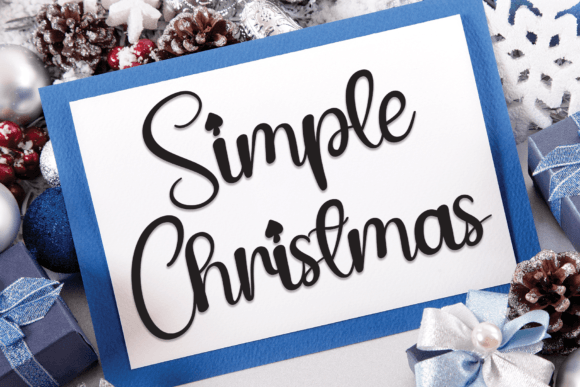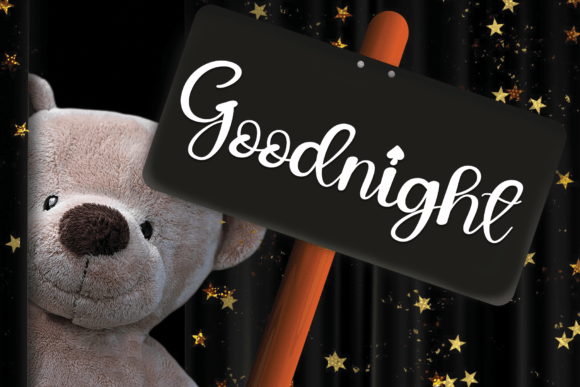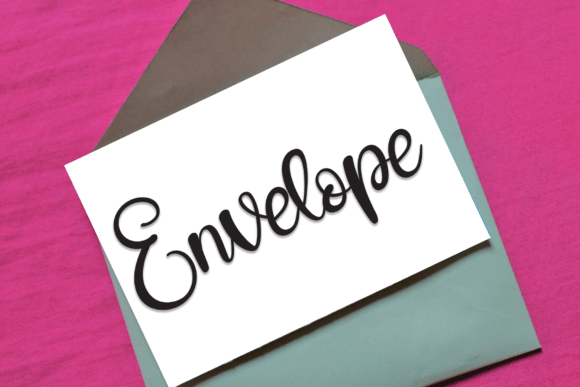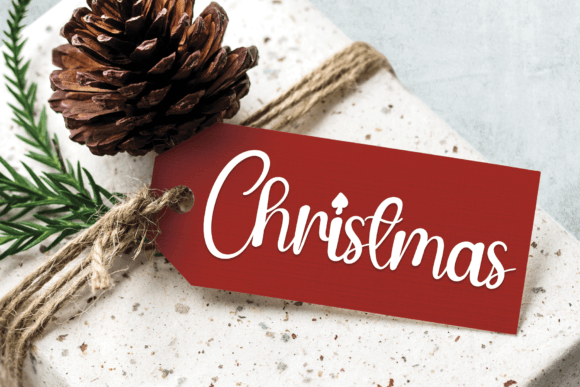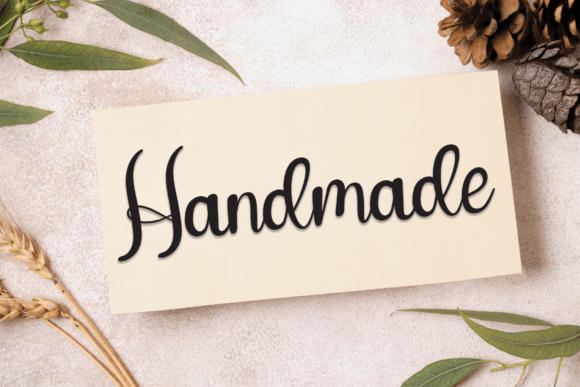
Simple Christmas Font
About Simple Christmas Font
Add a Warm and Personal Touch
The Simple Christmas Font download offers a sweet, smooth handwritten script designed to bring charm and character to your projects. Its playful curves and gentle lines are perfect for anyone seeking to add a romantic, festive, or personal feel to their work.
Perfect for Holiday and Everyday Designs
Whether you’re working on something seasonal or timeless, this font adapts beautifully. Try using it for:
• Holiday greeting cards
• Wedding invitations
• Social media graphics
• Personalized gift tags
• Crafting projects
With its soft handwritten flow, Simple Christmas sets the mood for love, joy, and celebration.
Easy to Use and Beautifully Crafted
Versatile and Stylish for Every Occasion
From festive messages to romantic notes, the Simple Christmas Font download delivers clarity, personality, and charm. Its clean yet whimsical form works across both print and digital designs.